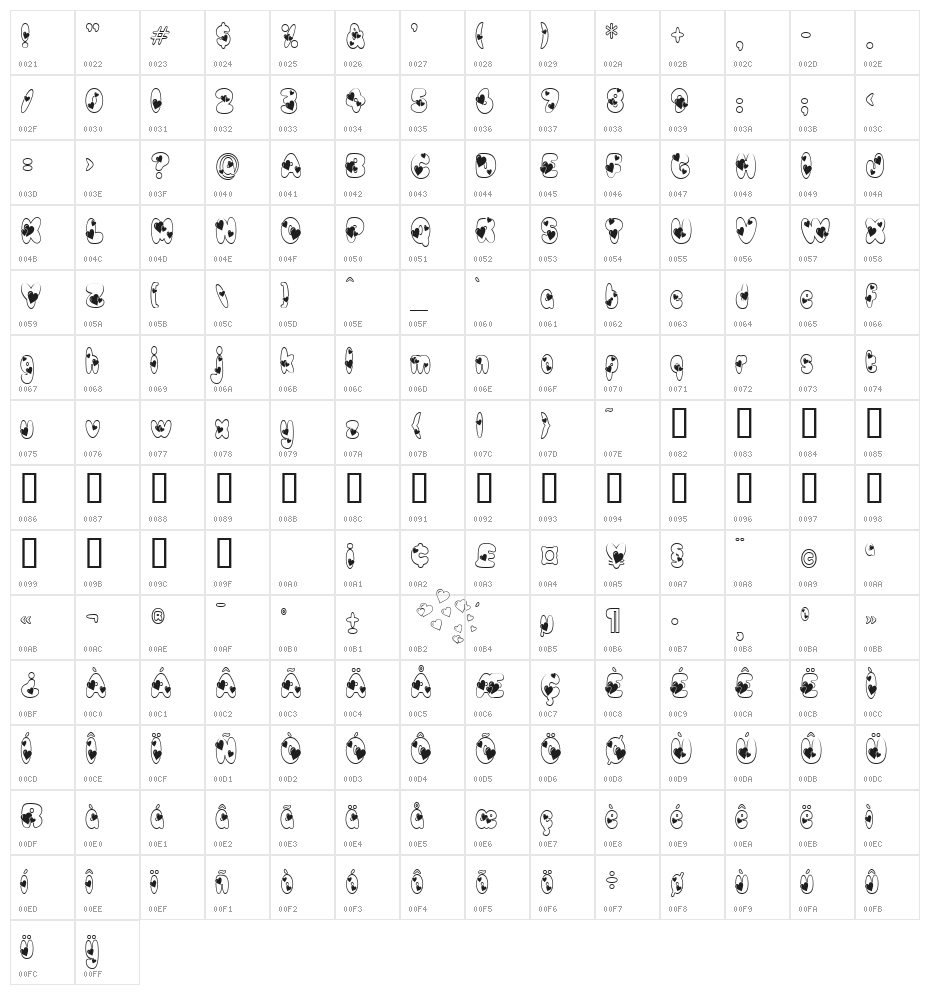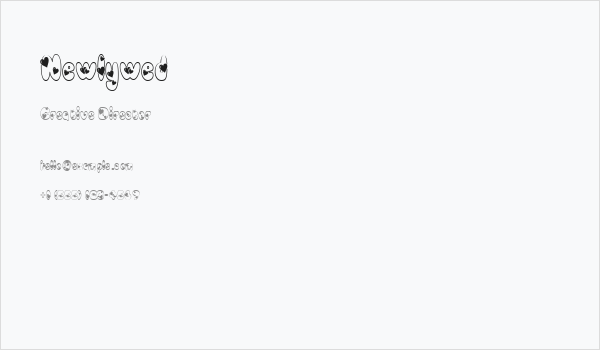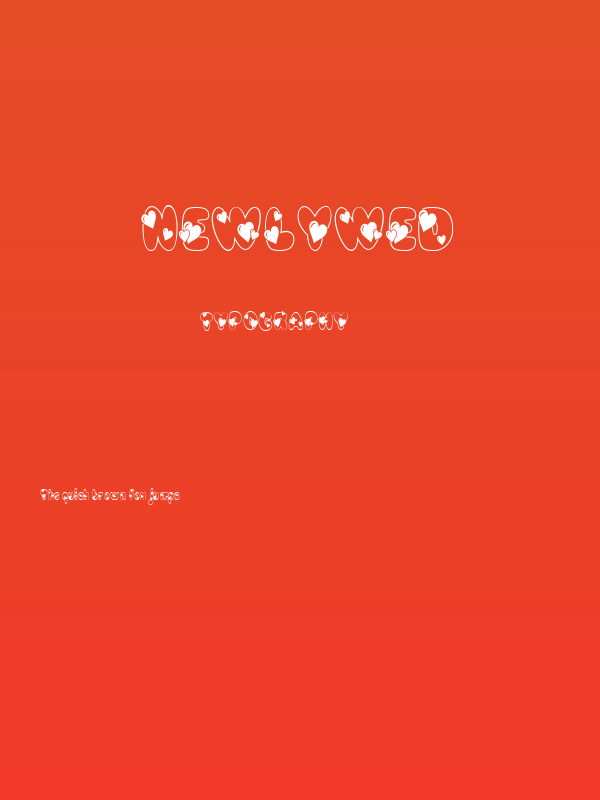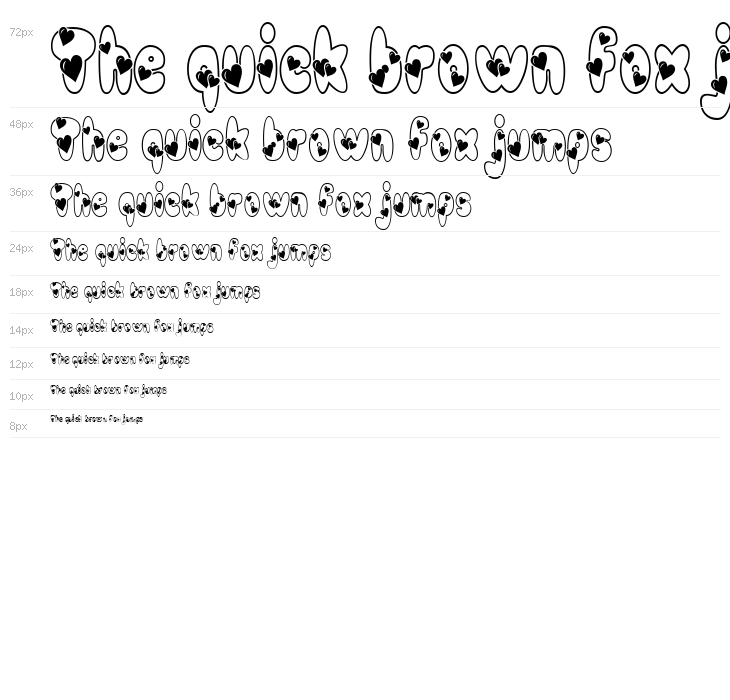
Newlywed Font
| 全体的なスタイル | Playful, Romantic |
| 用途 | Headlines, Invitations, Logos |
| おすすめプロジェクト | Perfect for wedding invitations, Valentine's Day cards, romantic event posters, and playful branding projects. |